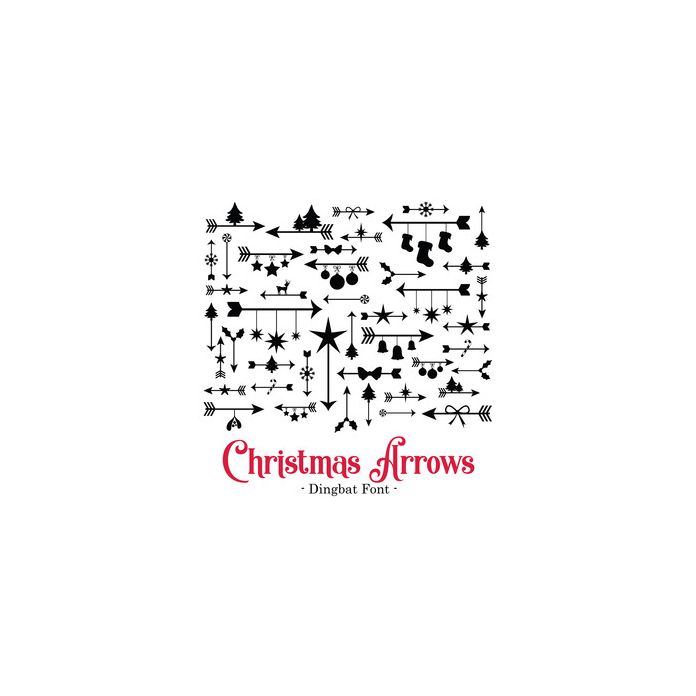
Christmas Arrows Seasonal Holiday Bumper Dingbat Font. Hand drawn font, includes 52 arrows assigned to upper and lower case letters. Great for holiday projects Christmas planners, holiday and seasonal scrapbooking and more! For more design ideas, coordinating designs & products and inspiration, please visit my blog http://www.sarahhurleyblog.com